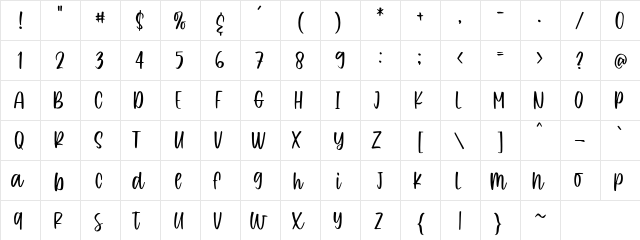
Adora Chalie Regular
| Foundry | Blankids Studio |
| Designer | Bangkit Tri Setiadi |
Design Context for Adora Chalie Typeface
Adora Chalie is a composed and adaptable typeface that performs quietly and consistently across a wide range of design contexts.